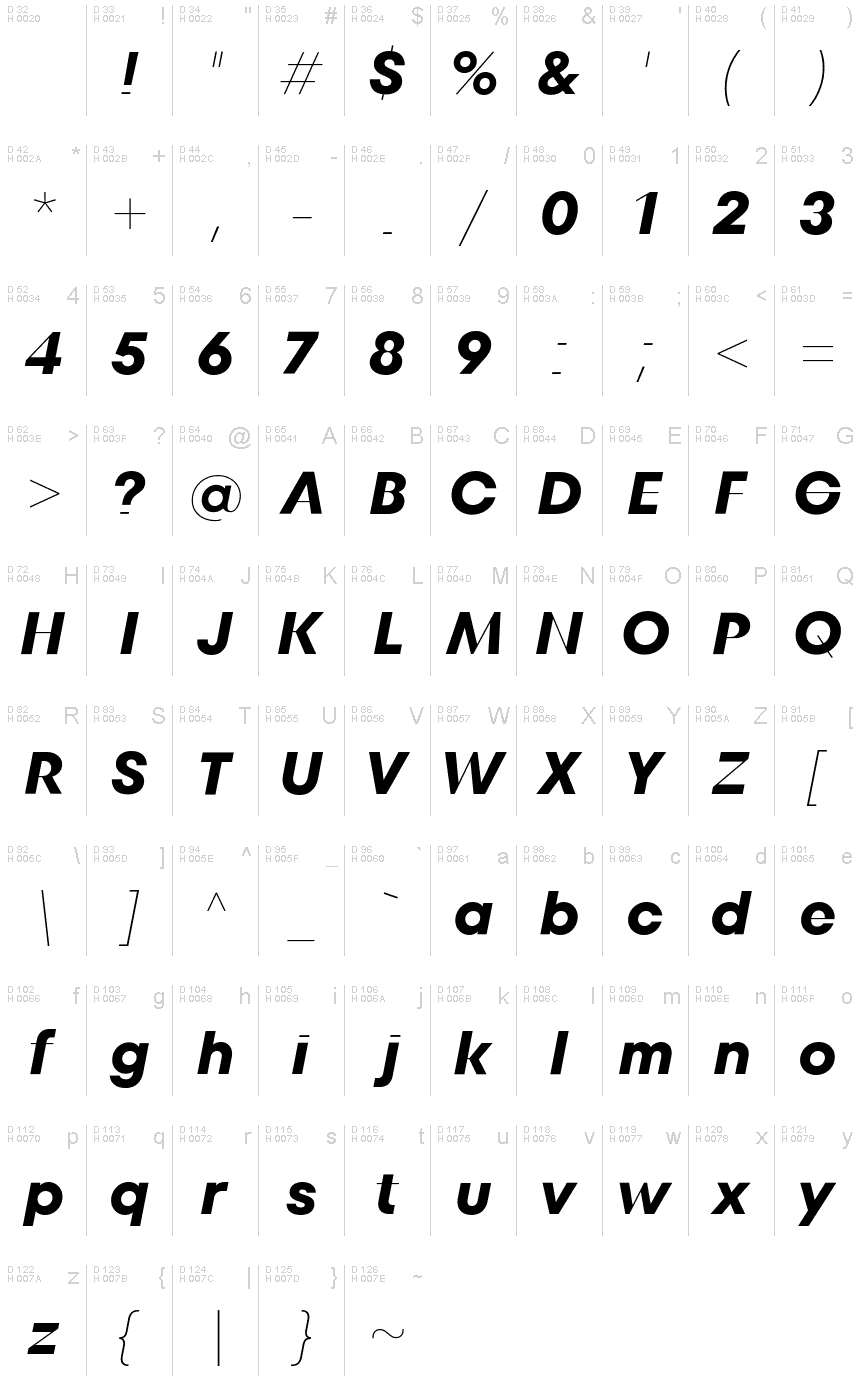
TT Fors Display Trl Bold Italic
TT Fors Display Bold Italic is a stunning sans serif font designed by TypeType Foundry. With its bold weight and italic style, this font exudes confidence, strength, and modernity. Its clean lines make it perfect for headlines, titles, and display text in digital or print projects. Whether you're designing a sleek website or crafting an eye-catching poster, TT Fors Display Bold Italic will undoubtedly add visual interest to your work. This versatile font is suitable for a wide range of projects from fashion magazines to tech blogs to music album covers. Let your creativity soar with TT Fors Display Bold Italic!